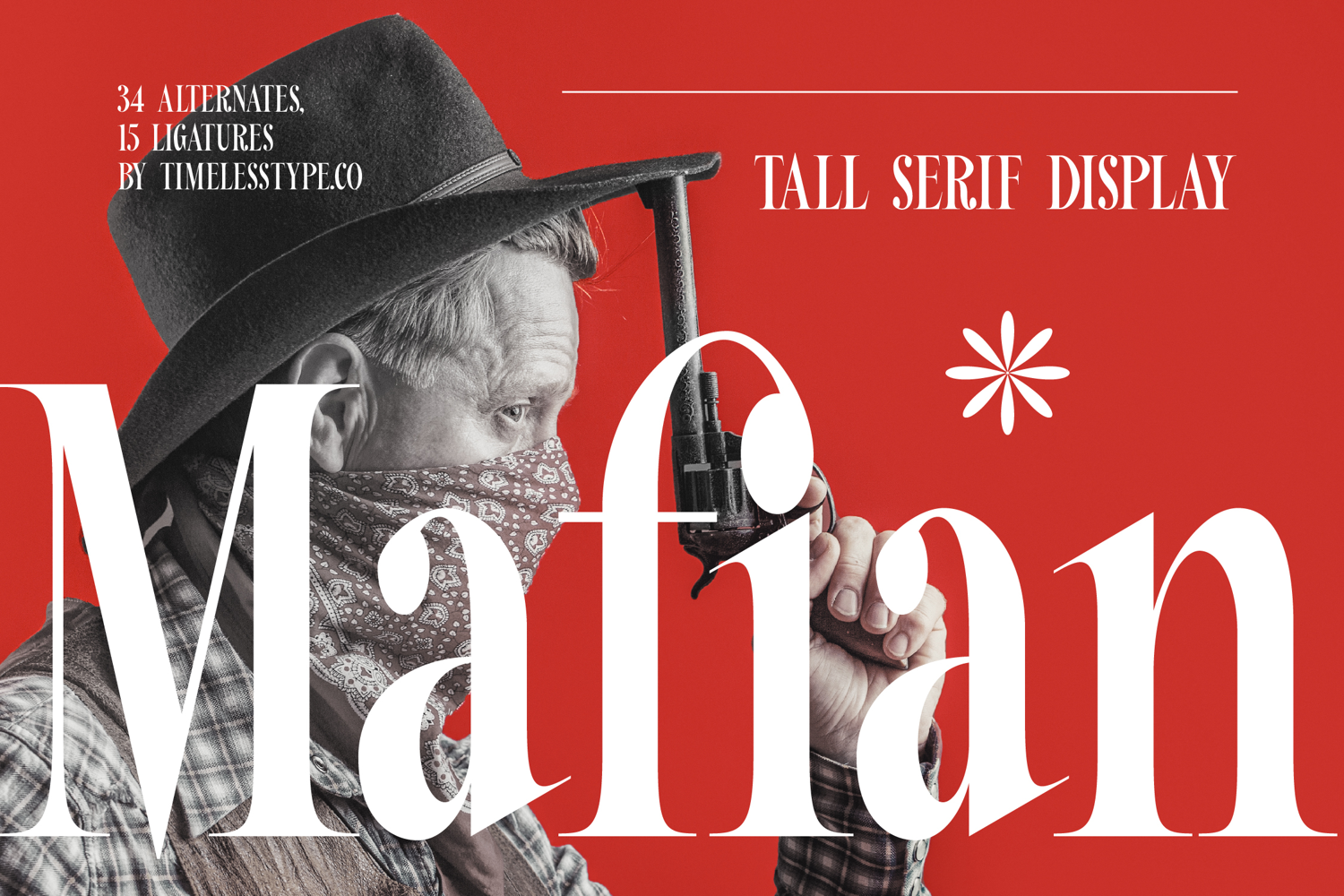
Mafian - Tall Serif Display
Mafian
Mafian Italic
Mafian - Tall Serif Display
Elevate your visual narratives with the powerful and distinctive aesthetic of Font Mafian - Tall Serif Display Serif Display. This high-contrast display serif font commands attention with its elegant, elongated forms and sharp, refined serifs. Designed for maximum impact, its sophisticated presence ensures your message is conveyed with undeniable authority and timeless elegance, making every word a statement.
Discover unparalleled design flexibility through the meticulously crafted features of Font Mafian - Tall Serif Display Serif Display, including its generous 34 alternates and 15 ligatures. These stylistic options empower designers to create truly unique and personalized typography, adapting seamlessly to diverse creative visions. With its extensive multilingual support, Font Mafian - Tall Serif Display adapts seamlessly across global markets, making it incredibly versatile for international projects.
Perfectly suited for applications demanding a touch of grandeur and sophistication, Font Mafian - Tall Serif Display excels in luxury branding, high-end packaging, and editorial design. It is ideal for crafting compelling magazine layouts, fashion communications, and any project where a memorable headline or impactful logo is paramount. This font is engineered to instill a sense of premium quality and exclusivity.
Transform your designs with the authoritative yet refined character of Font Mafian - Tall Serif Display Serif Display. Its unique blend of classic appeal and a modern edge provides the perfect foundation for projects that require a strong, confident identity. Add this essential typeface to your design toolkit and ensure your brand achieves exceptional visual impact and lasting recognition.